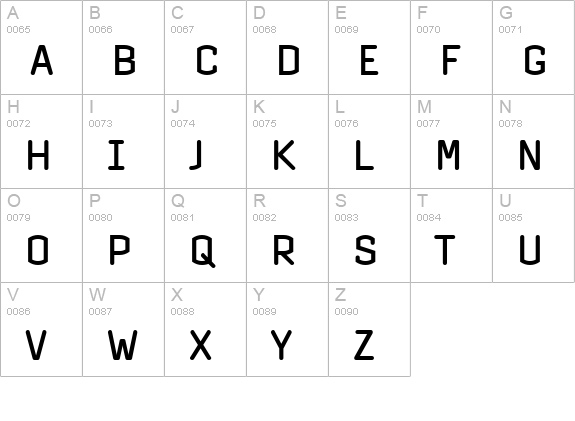
PFInterface Regular is the standard, neutral variant in the PFInterface typeface family \xE2\x80\x94 well suited to general body text, paragraphs, and standard typographic work.
PFInterface Regular is a versatile and modern sans-serif font that is perfect for a wide range of design projects. With its clean lines and balanced proportions, this font exudes professionalism and sophistication. Whether you're creating a sleek website, designing a polished presentation, or crafting a stylish logo, PFInterface Regular is sure to elevate your work to the next level. Best of all, PFInterface Regular is available for free download at FontsMarket.com. This means you can access this high-quality font without any cost, making it a valuable addition to your design toolkit. Don't miss out on the opportunity to enhance your projects with the timeless elegance of PFInterface Regular. Download it today and start creating with confidence.